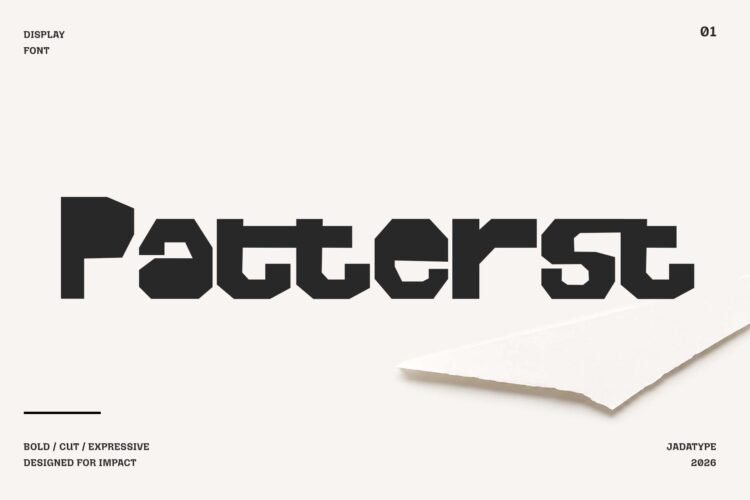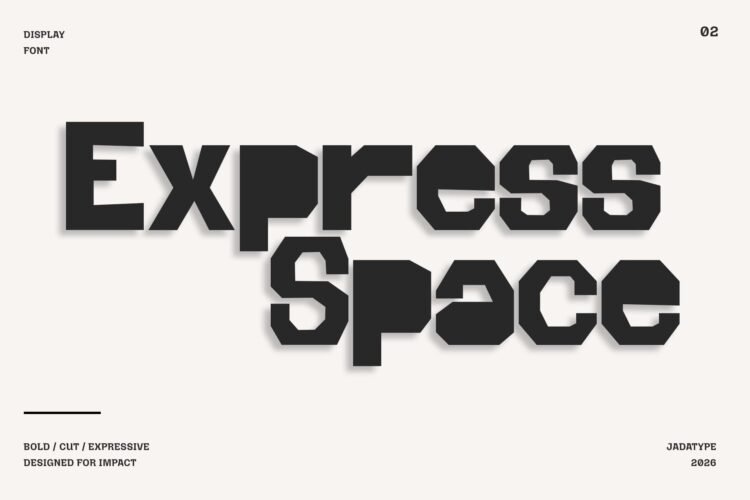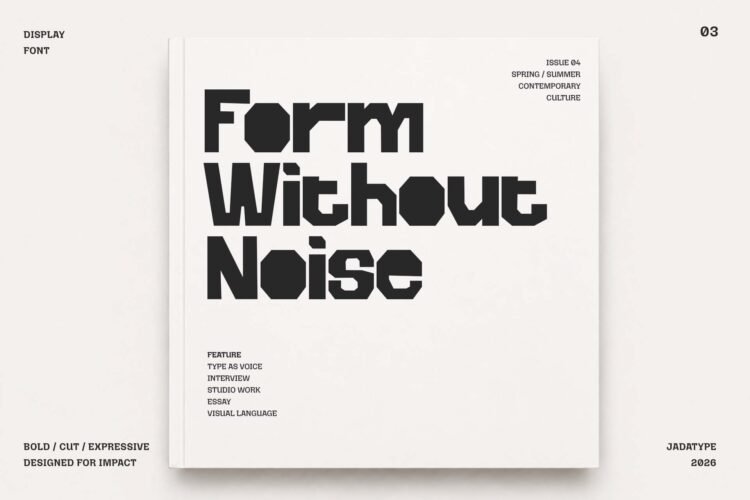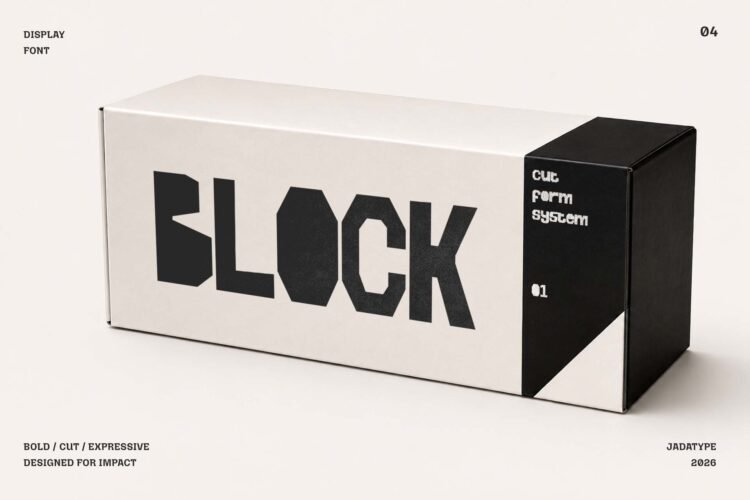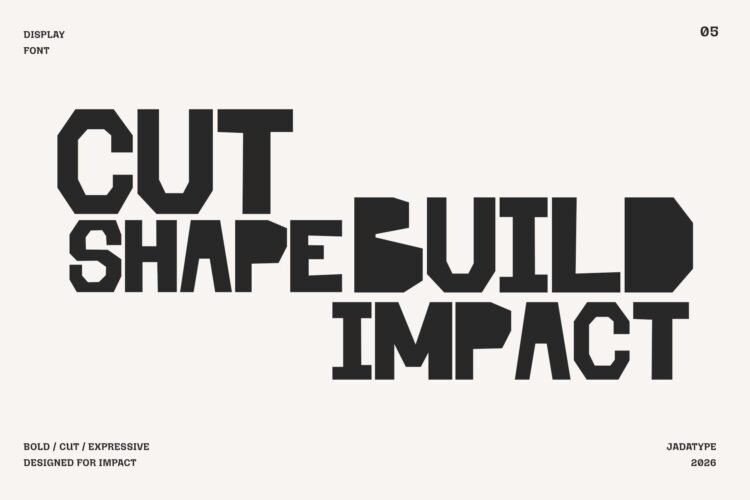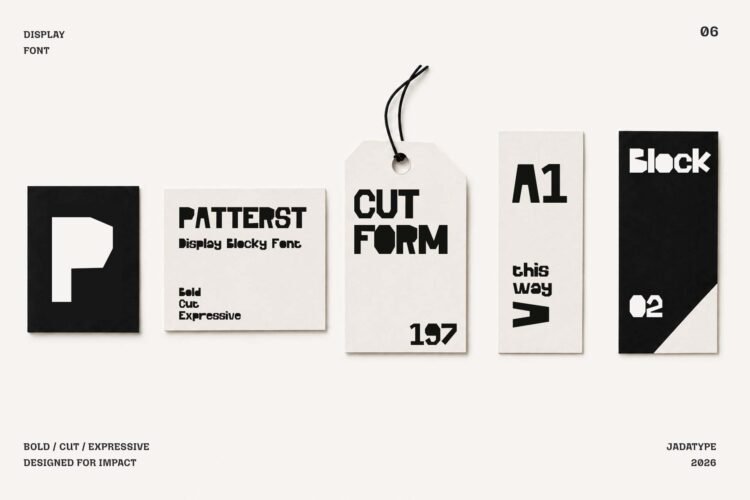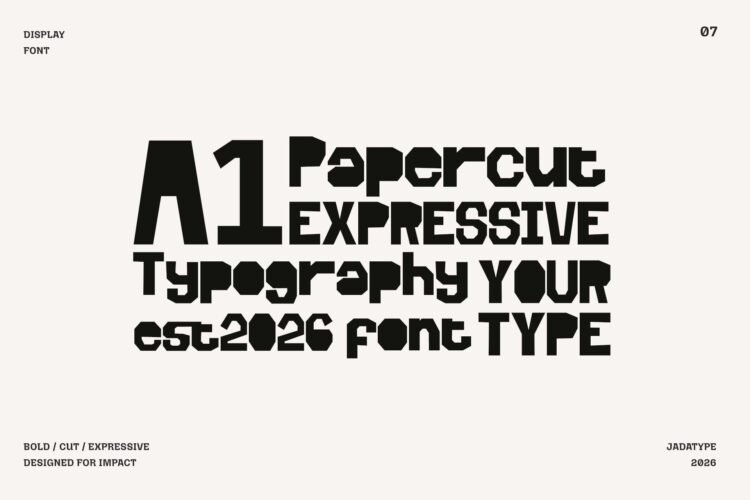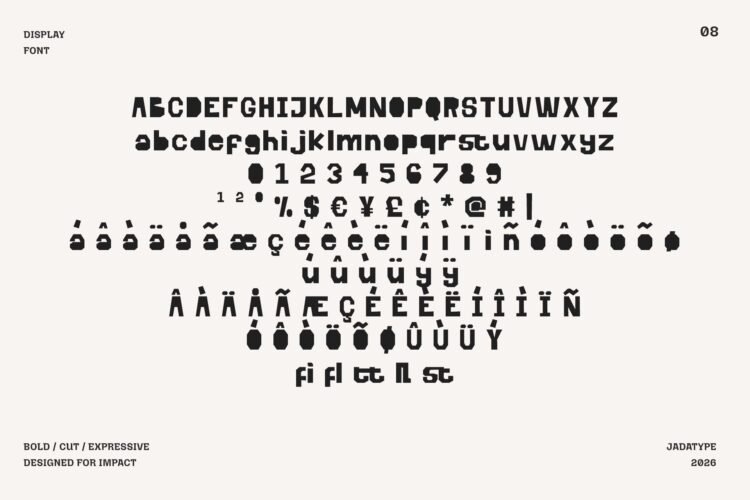
Patterst is a bold display font built around a distinctive paper-cut aesthetic. Its geometric construction, rigid structure, and smooth edges create a crafted dimensional feel that gives headlines and large-scale typography a strong visual presence. The combination of structured forms and handmade character makes it especially effective for playful, contemporary display work.
Perfect for branding, logo design, posters, advertising graphics, product packaging, book covers, editorial layouts, social media graphics, website graphics, and other creative display projects. Patterst contains standard English letters, numbers, punctuation, and accented characters for multilingual use, with a single Regular style. Designed by Jada Akbal and published by Jadatype.
• Standard uppercase and lowercase letters
• Numbers and basic punctuation
• Bold geometric paper-cut display letterforms
• Several accented characters for multilingual support
• Style included: Patterst Regular